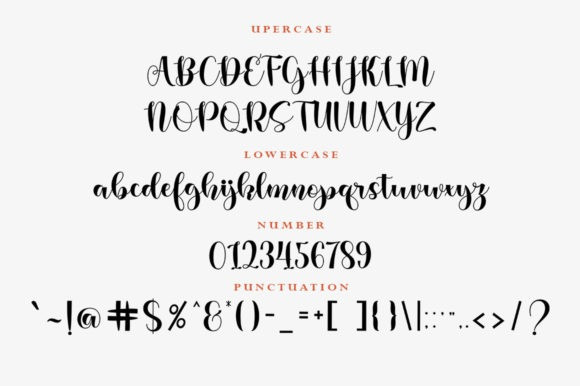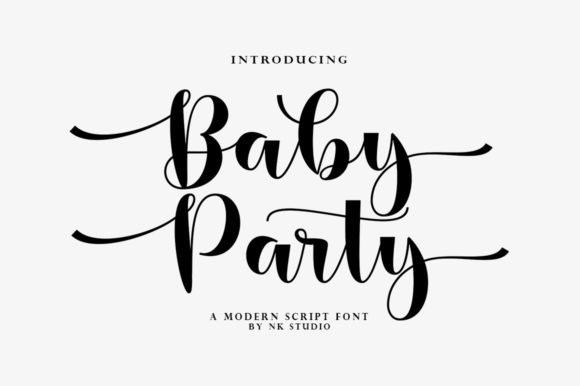
Baby Party Font
Baby Party Calligraphy Font feels equally charming and elegant. It looks stunning on wedding invitations, thank you cards, quotes, greeting cards, logos, business cards and every other design which needs a handwritten touch.
Baby Party is PUA encoded which means you can access all of the glyphs and swashes with ease!